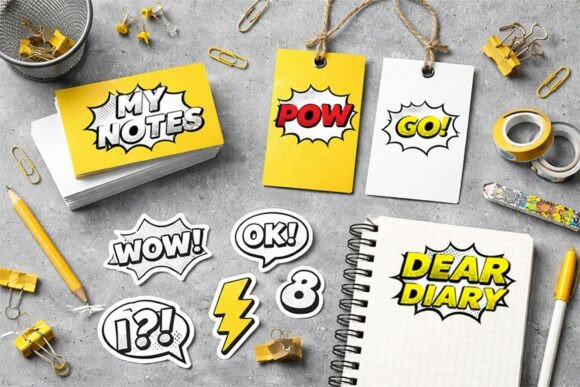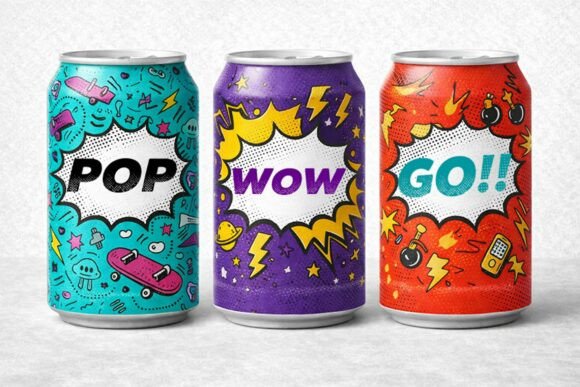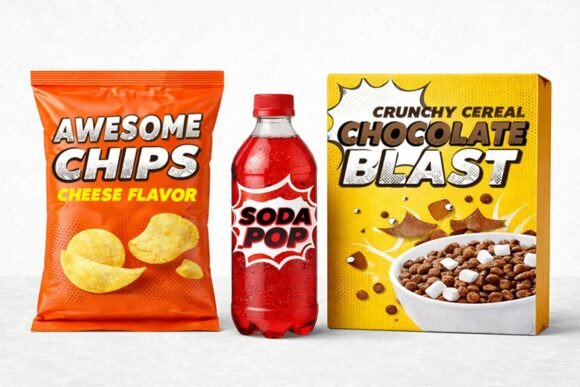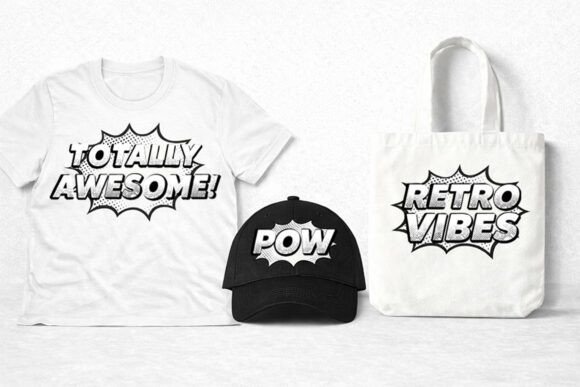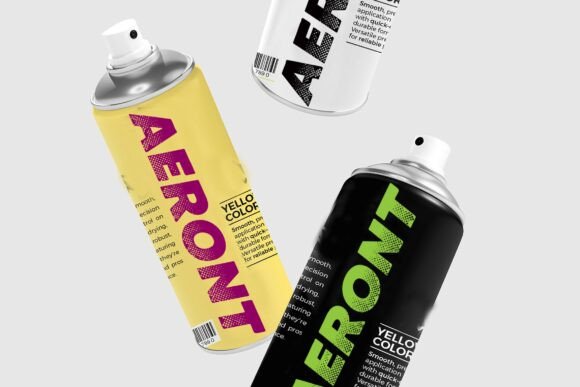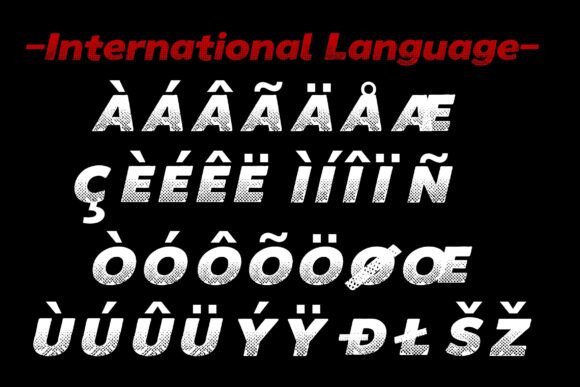
The Art of Visual Storytelling: Unlocking the Power of Halftone Retro Font
Do you ever find yourself lost in the world of typography, searching for that perfect font to bring your creative vision to life? I know I do. It’s those moments of inspiration when a font sparks an idea, and suddenly, your project takes off in a whole new direction. For me, that moment came when I stumbled upon the Halftone Retro Font – a bold, black-and-white halftone display font that screams retro pop art and comic-style typography.
This font is more than just a stylish addition to your design; it’s a key to unlocking a strong visual impact. With its clean outlines and detailed dot textures, the Halftone Retro Font is perfect for posters, branding, merchandise, social media graphics, and creative projects that need to stand out from the crowd.
- Unique Characteristics: This font features a distinctive halftone effect, reminiscent of classic comic book and newspaper illustrations from the early 20th century.
- Style and Variations: The Halftone Retro Font includes multiple styles, including Regular, Bold, Italic, and Bold Italic, allowing for a range of creative expressions.
- Font Metrics and Kerning: The font’s metrics and kerning have been carefully designed to ensure optimal readability and aesthetic appeal.
Halftone Retro Font Review
Overall, I’d say the Halftone Retro Font is a fun, nostalgic addition to any design project. It’s perfect for creating a unique, retro aesthetic that’s sure to grab attention.
- The font’s distressed, halftone effect adds a charming, vintage feel to text.
- It’s available in a range of weights and styles, making it versatile for different design applications.
- The font is well-suited for use in advertising, editorial, and packaging design, among other fields.
Limitsations ⚠️
- The font may be too “out there” for some projects, particularly those requiring a more conservative or professional tone.
- The distressed effect can sometimes make text difficult to read, especially at smaller sizes.
- The font’s retro aesthetic may not appeal to all audiences, particularly those who prefer more modern or minimalist design.
In conclusion, the Halftone Retro Font is a great choice for designers looking to add a touch of nostalgia and whimsy to their work. While it may not be suitable for every project, it’s a fun and versatile font that’s sure to bring a unique perspective to your designs.
Halftone Retro Font is perfect for creating vintage-inspired designs, such as:
- Posters and flyers for music events or art exhibitions.
- Invitations and announcements for weddings or parties.
- Branding and marketing materials for retro-themed businesses.
Remember to experiment with different font sizes, colors, and effects to get the most out of Halftone Retro Font.